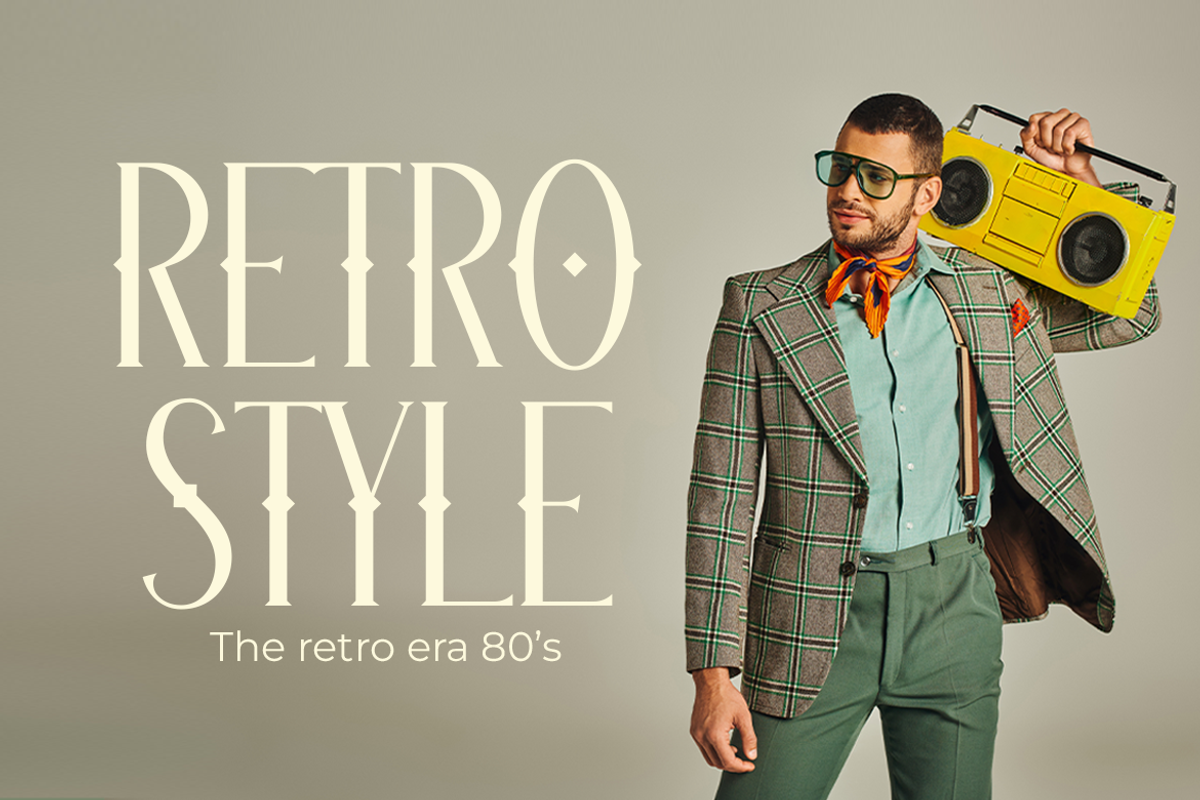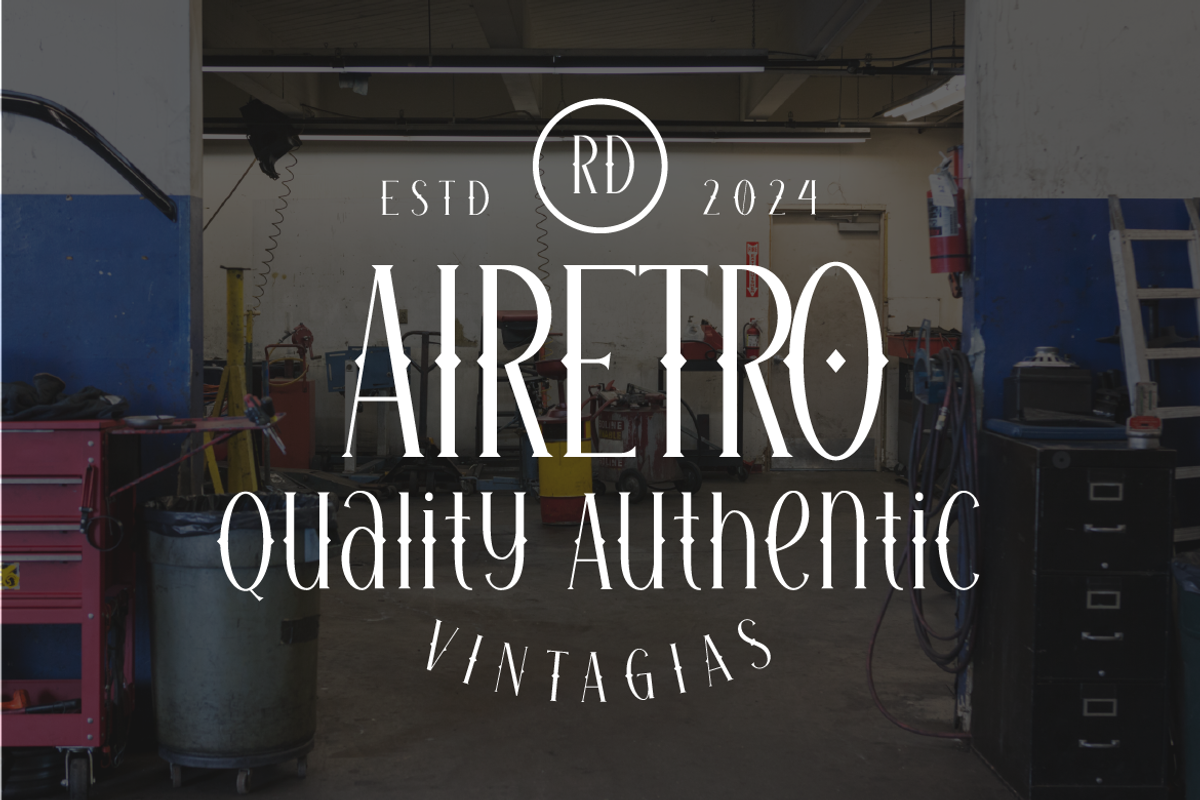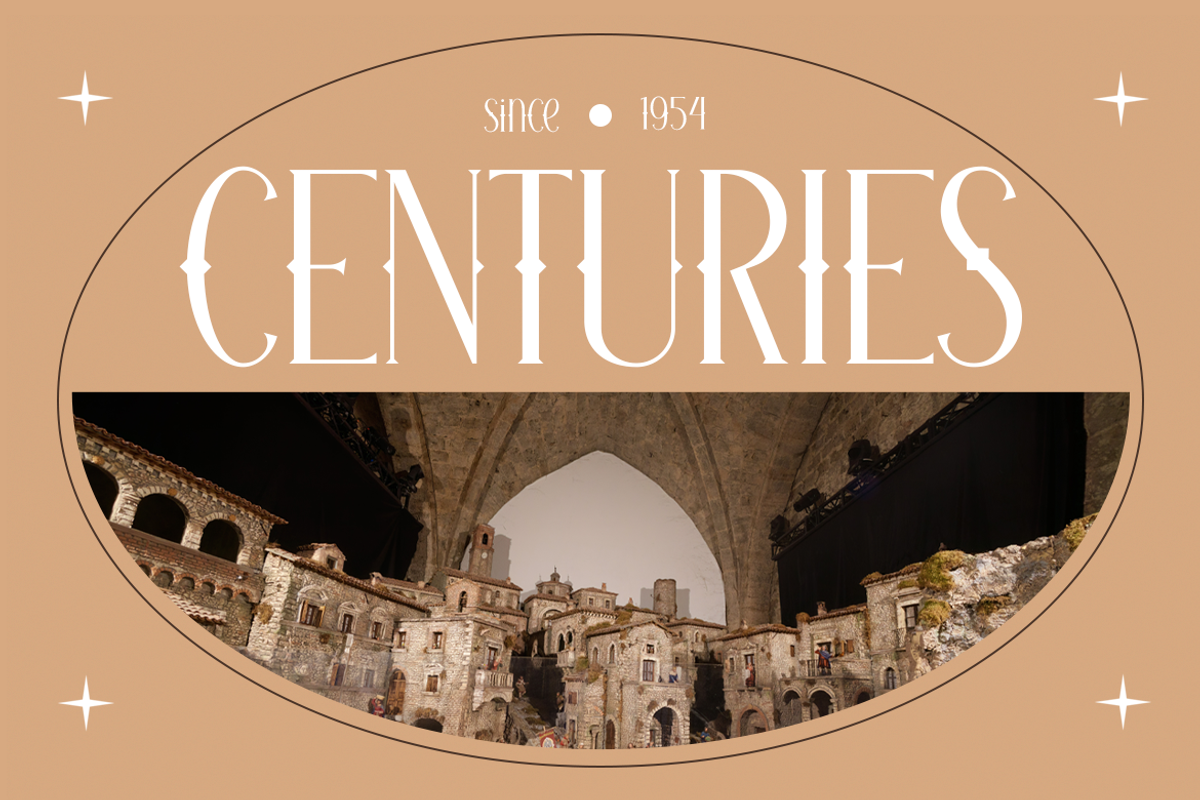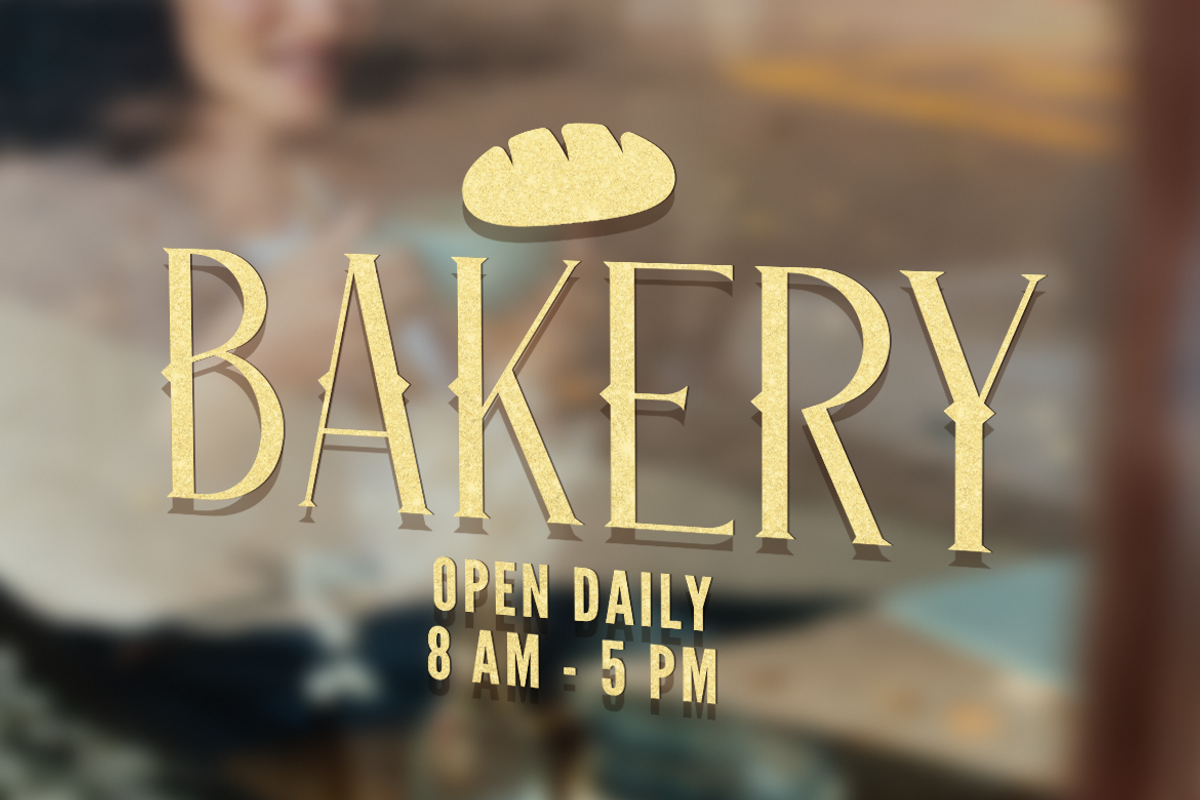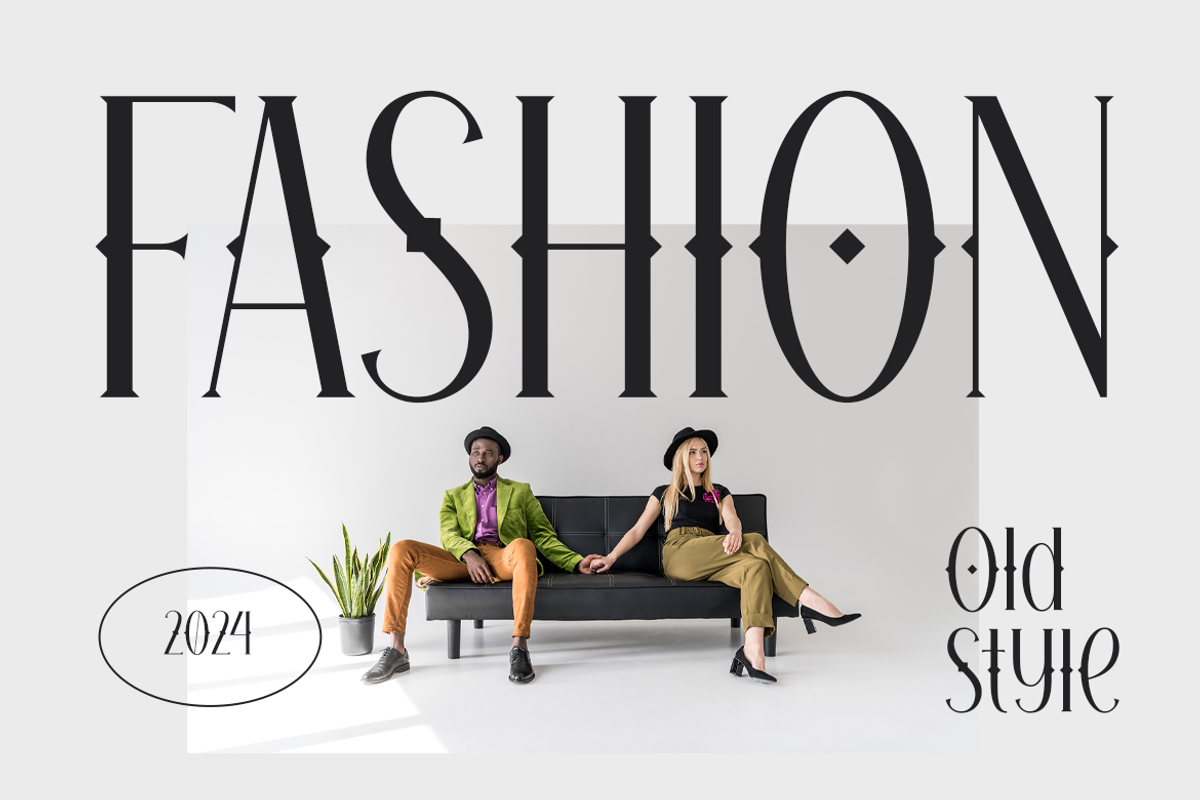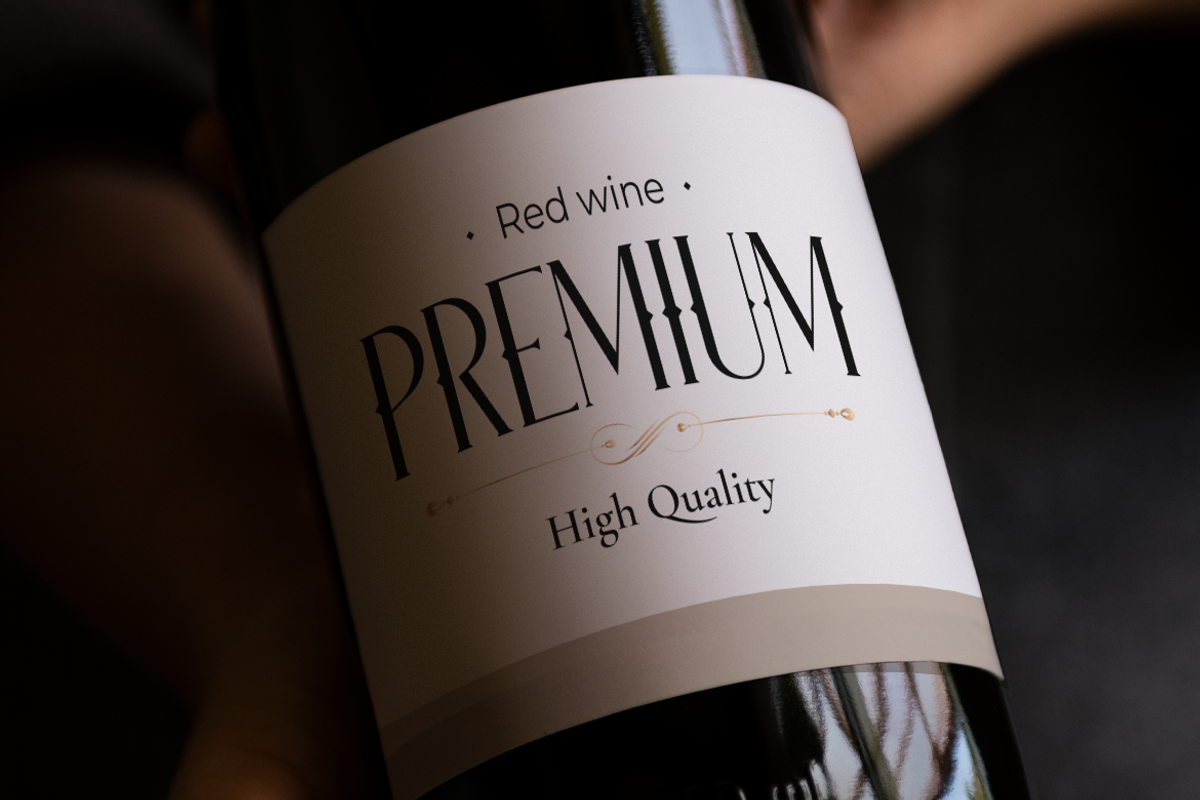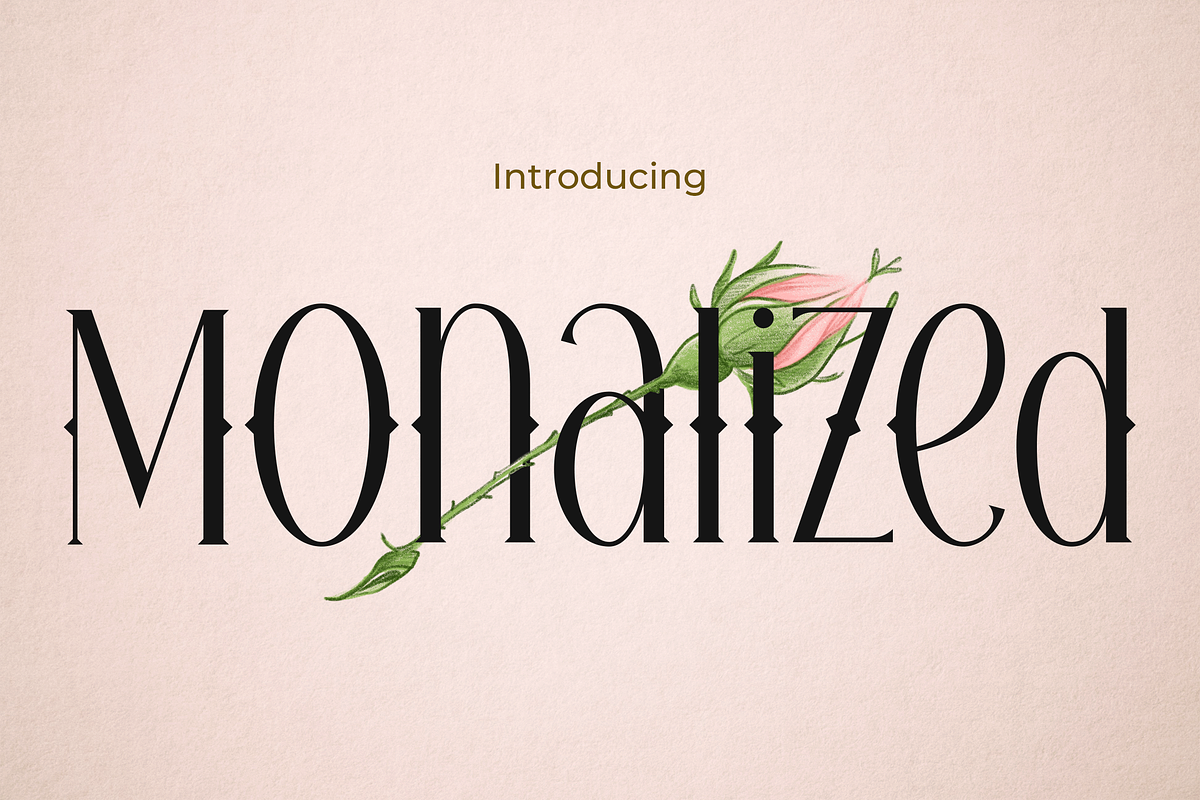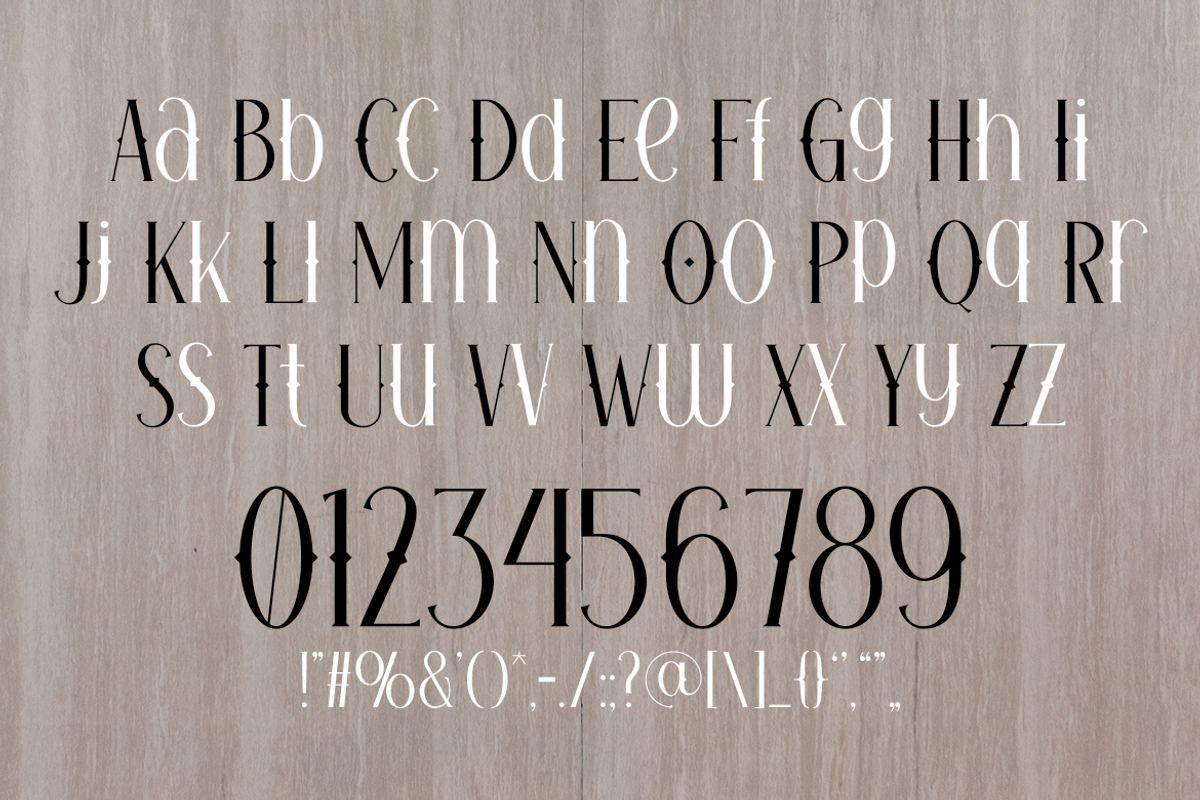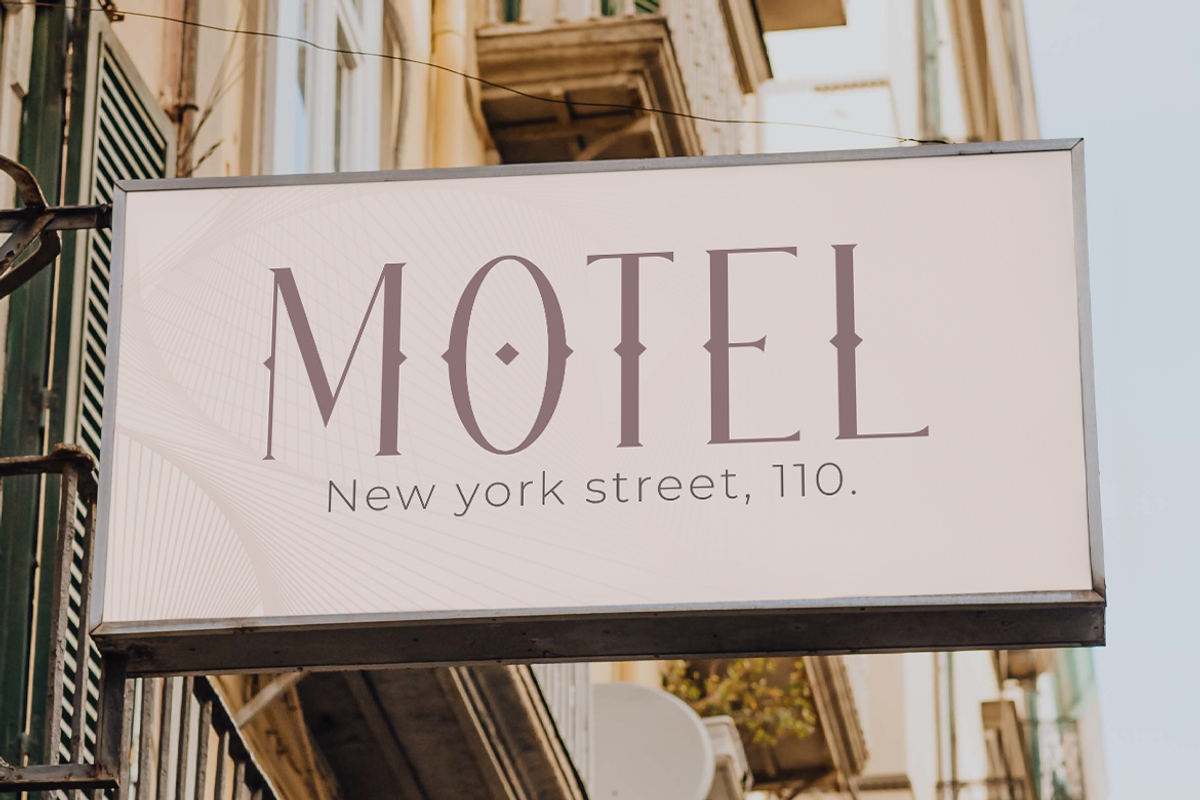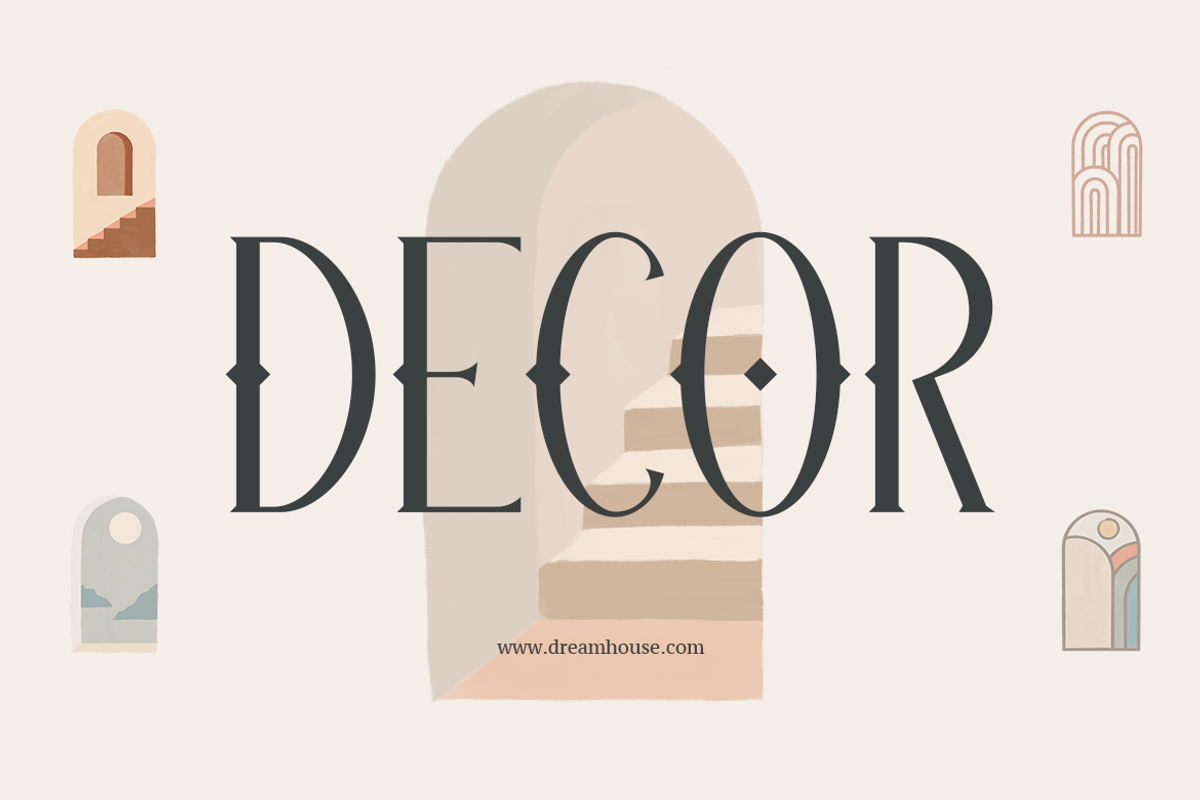
MONALIZED
Monalized – A Retro Chic Font for Fashion Forward Designs
Step into the world of style and sophistication with Monalized, the perfect font for fashionistas and designers who dare to stand out. Monalized is not just a typeface; it’s a statement. Inspired by the glitz and glamour of the retro era, this font weaves the extravagance of the past with the sleekness of modern design, making it an impeccable choice for those who embrace both nostalgia and innovation.